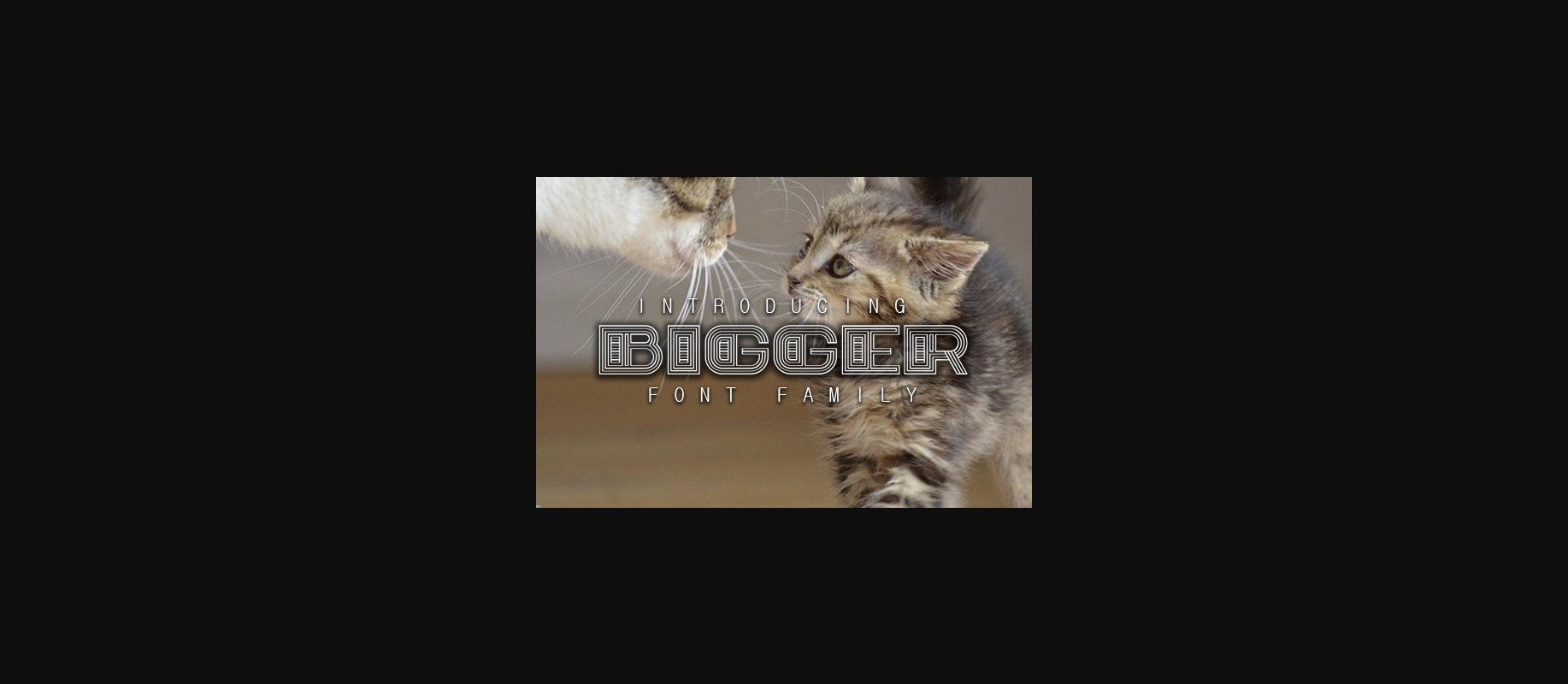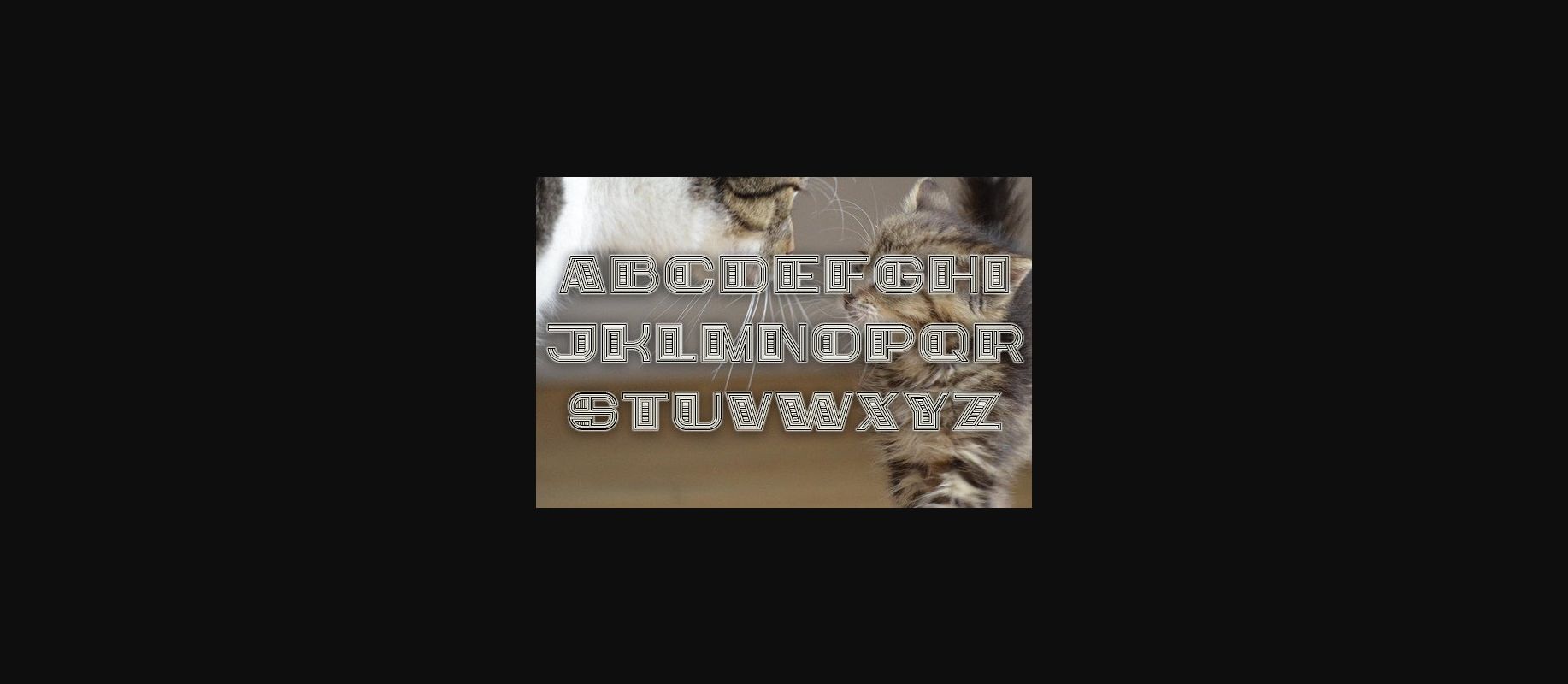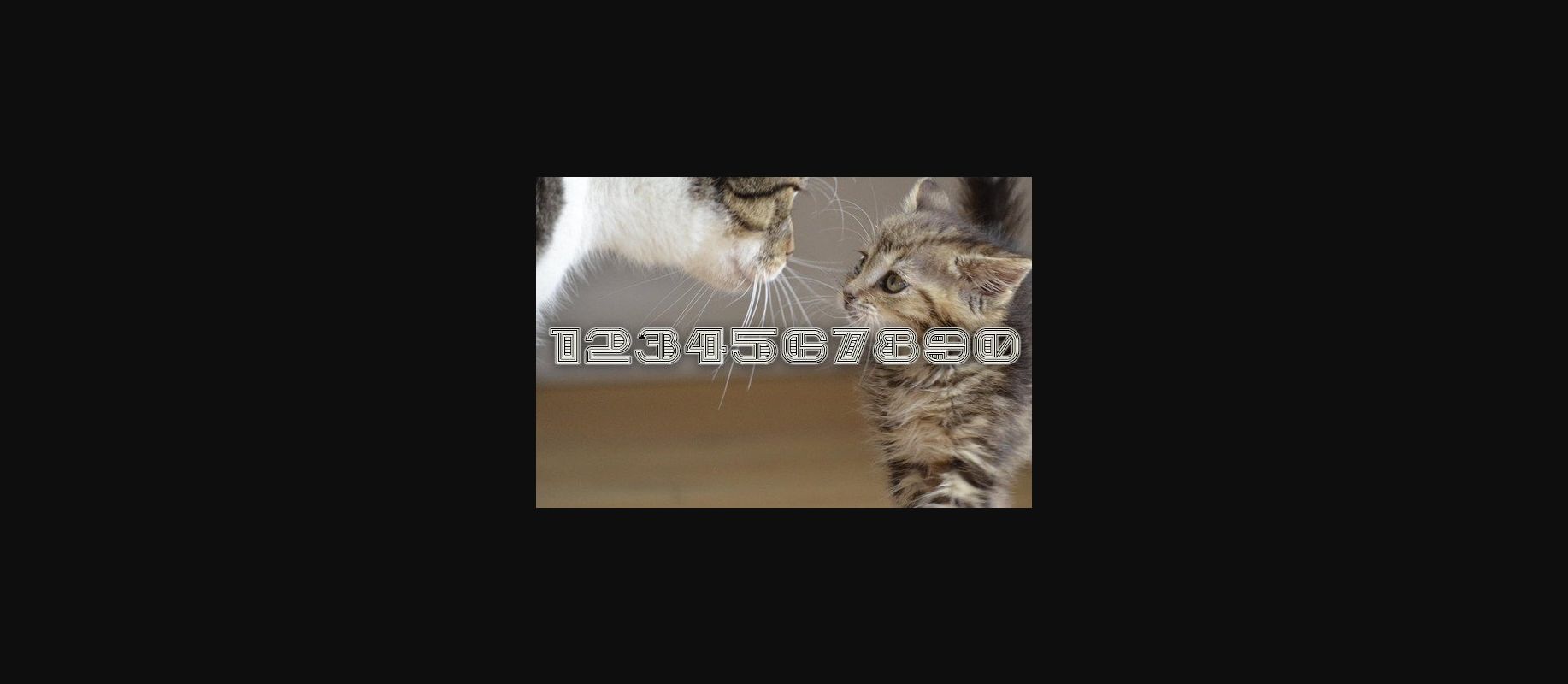
Bigger is a cool and unique display font. No matter the topic, this font will be an incredible asset to your fonts’ library, as it has the potential to elevate any creation.